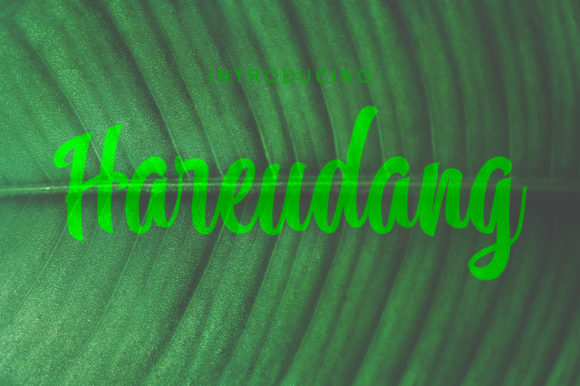
Introducing Hareudang Font - A Journey Through Elegance and Charm
In the vast realm of fonts, Hareudang stands out as a radiant gem, captivating hearts with its enchanting aura. This script font, crafted with meticulous care by Hardi Studio, is not merely a collection of characters; it's an artistic masterpiece that breathes life into your creative endeavors.
Hareudang's essence lies in its delicate balance between charm and sophistication. Its graceful lines dance across the page, evoking a sense of timeless elegance. Each letter, meticulously shaped and adorned with subtle ornamentation, carries a story of artistry and passion.
Whether you're designing wedding invitations that exude romance, heartfelt thank-you cards that carry your gratitude, or captivating quotes that inspire and uplift, Hareudang is your perfect companion. Its versatility extends to logos, business cards, and various other designs, adding a touch of personalized elegance to every project.
With Hareudang, you're not just downloading a font; you're embracing a world of creativity. Its enchanting aura transforms ordinary words into works of art, leaving an indelible mark on the hearts of your audience.
The Beauty of Hareudang:
* Delicate Script: Hareudang's flowing script adds a touch of elegance and charm to your designs.
* Versatile Applications: From wedding invitations to logos, Hareudang effortlessly adapts to a wide range of creative projects.
* Personalized Touch: Create unique designs that reflect your personal style and captivate your audience.
* Timeless Appeal: Hareudang's classic design stands the test of time, ensuring your creations remain relevant and captivating.
* Artistic Expression: Unleash your creativity and let Hareudang's enchanting aura transform your words into works of art.
Embark on a creative journey with Hareudang Font, where elegance, charm, and artistic expression unite to create designs that leave a lasting impression. Let Hareudang be your muse, inspiring you to craft captivating visuals that resonate with your audience and leave them spellbound.